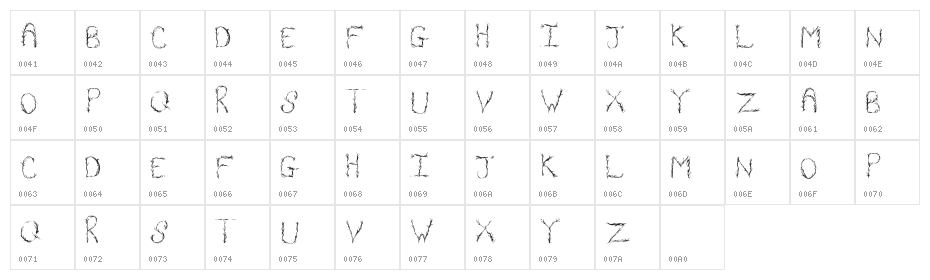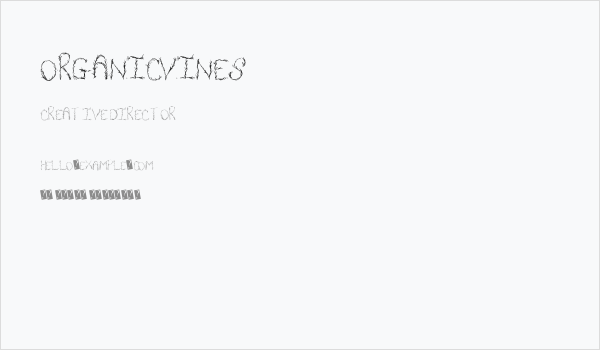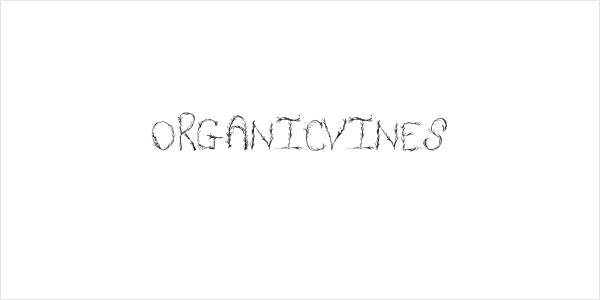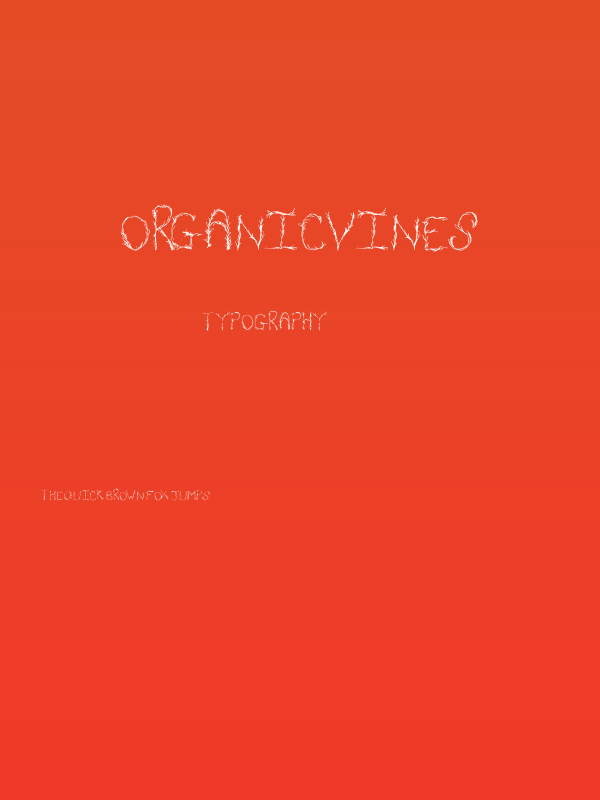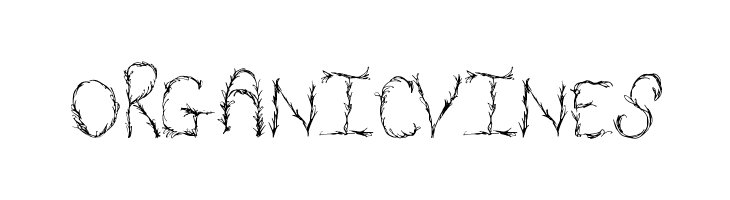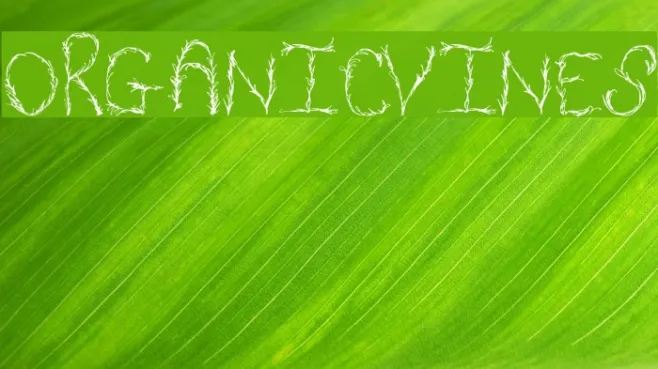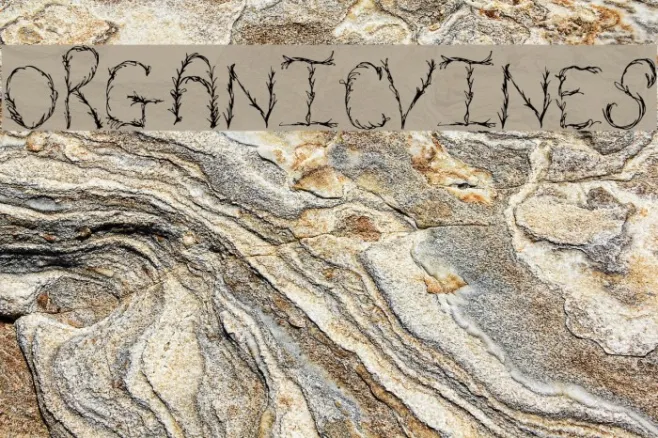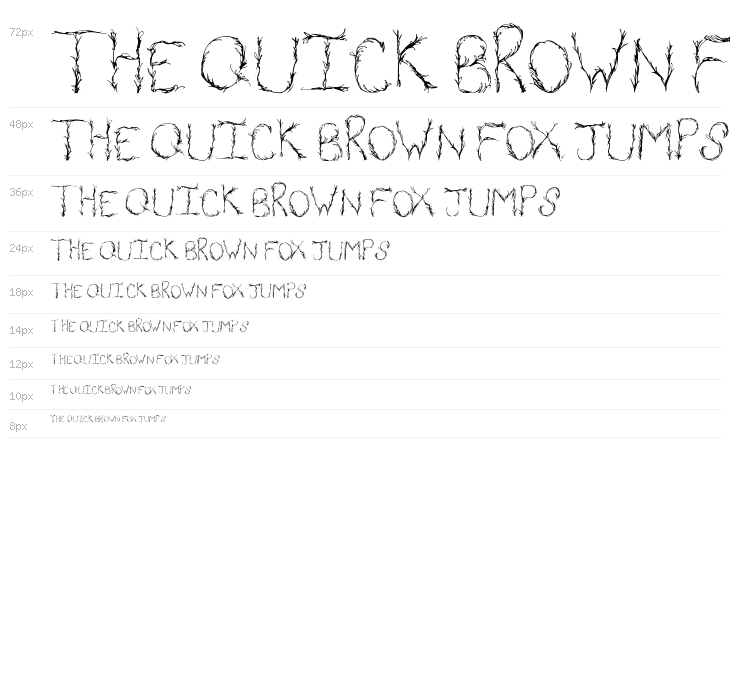
OrganicVines Font
OrganicVines Description
This font features a unique and organic design, with each letter intricately crafted to resemble twisting vines. The strokes are uneven and jagged, giving the impression of natural growth and movement. The overall appearance is both whimsical and slightly wild, making it stand out with its decorative elements. The uppercase and lowercase letters maintain a consistent style, emphasizing the vine-like theme throughout. This font is ideal for projects that require a touch of nature or fantasy, offering a distinct and artistic flair.
| Proposed Projects | Perfect for nature-themed designs, fantasy book covers, eco-friendly product branding, and artistic posters. |